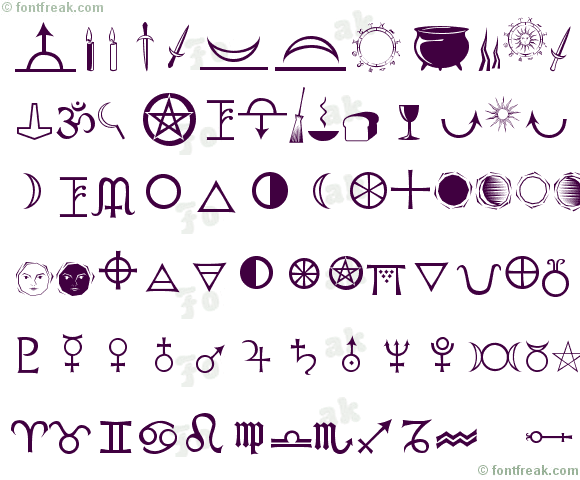
Astrological
About Astrological
The Astrological font by Peter Rempel is a unique decorative typeface that draws inspiration from celestial themes and astrological symbols. This font is characterized by its playful yet sophisticated design, making it a standout choice for projects that require a touch of whimsy and elegance. The strokes exhibit a moderate weight with a subtle contrast, ensuring readability while still providing an artistic flair. The spacing between the characters is thoughtfully designed to maintain clarity, allowing the intricate details of the astrological motifs to shine through.
Astrological is particularly well-suited for various creative applications. It can enhance wedding invitations, adding a celestial charm that resonates with couples looking for something distinctive. Additionally, this font works beautifully on movie posters, especially those in the fantasy or sci-fi genres, where the theme of astrology is prevalent. Restaurant menus can also benefit from the unique aesthetic of this typeface, making dishes feel more adventurous and enticing. Furthermore, it serves as an eye-catching choice for content creators aiming to engage audiences on social media platforms, where visual appeal is crucial.
The target audience for the Astrological font includes graphic designers, small business owners, and content creators who are looking to infuse their work with a unique aesthetic. This font allows them to explore their creativity while maintaining a professional look.
What truly sets the Astrological font apart is its blend of whimsy and sophistication, making it a versatile choice for various design projects. The intricate astrological symbols combined with its legible letterforms offer a unique opportunity to captivate and engage viewers. For those interested in incorporating this distinctive typeface into their designs, the Astrological font free download is readily available, making it accessible for all creative endeavors.